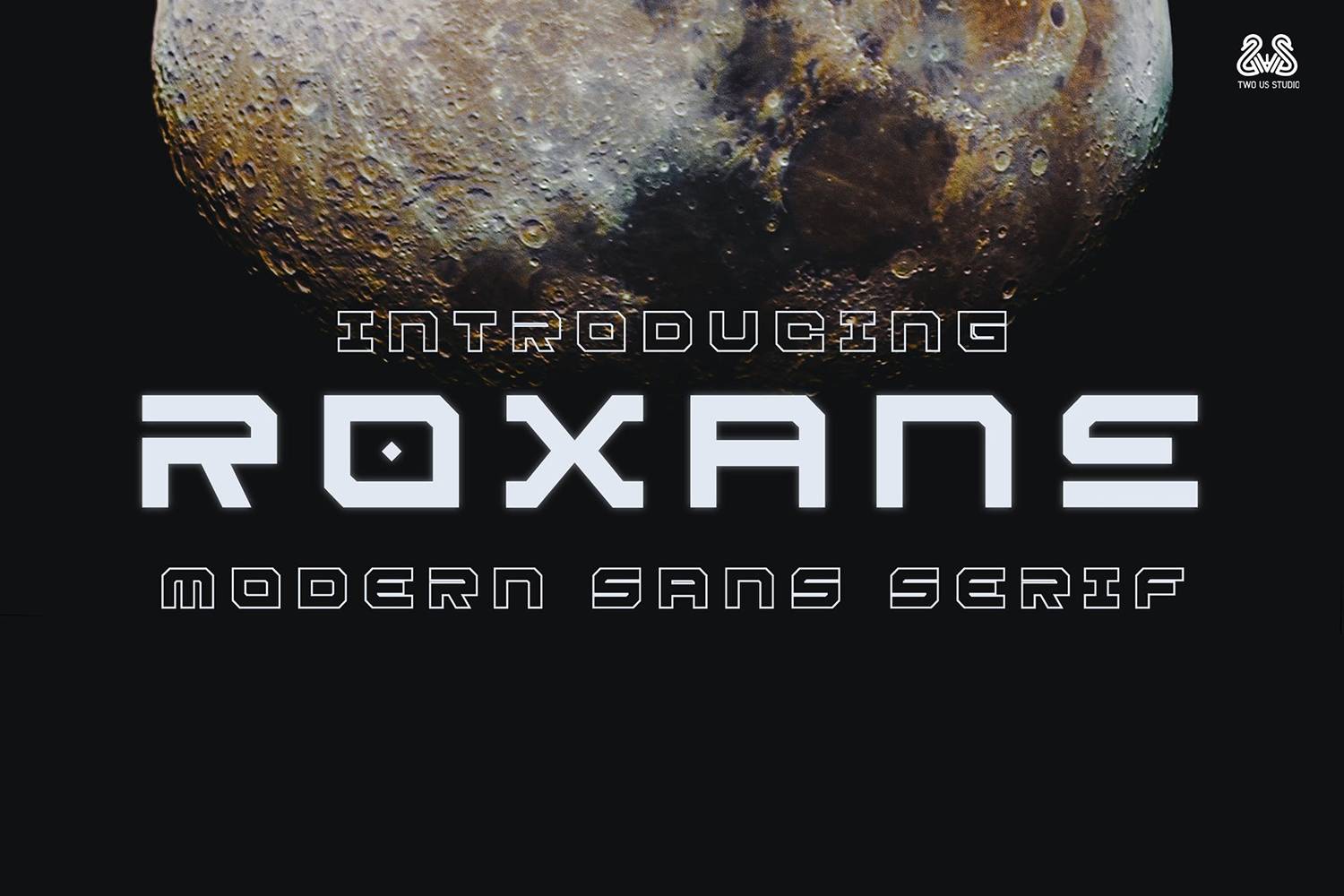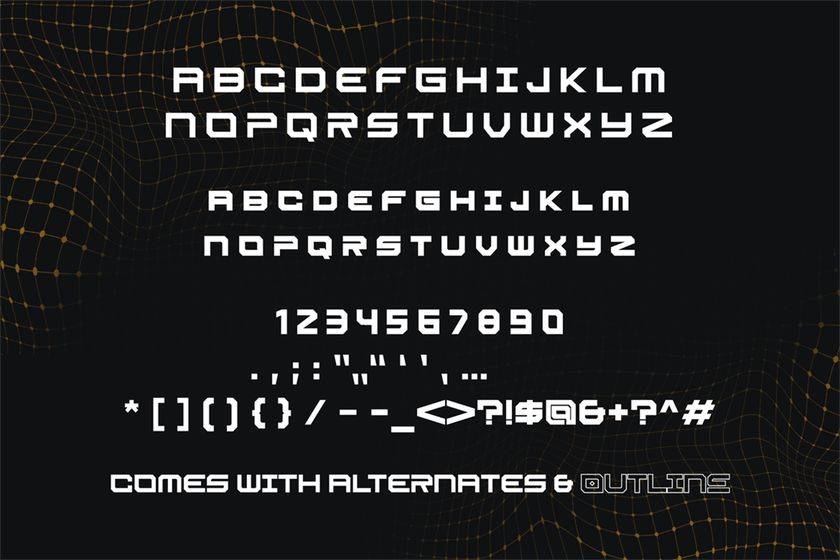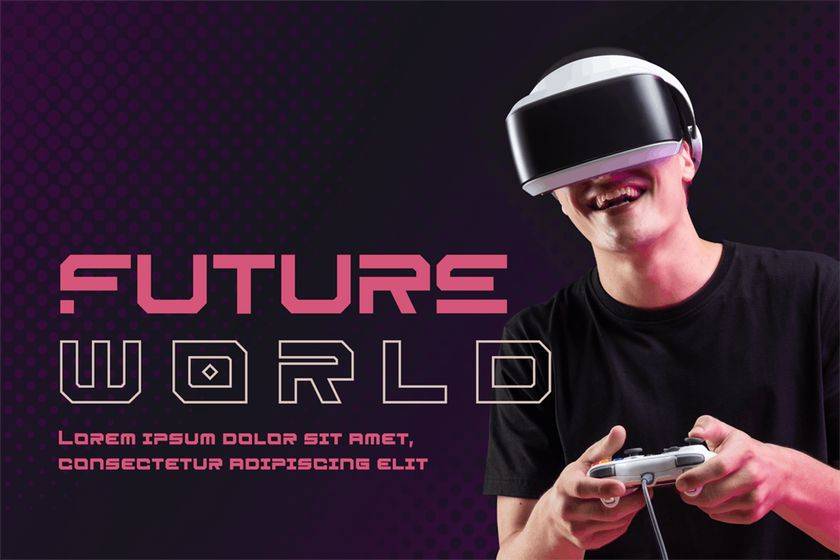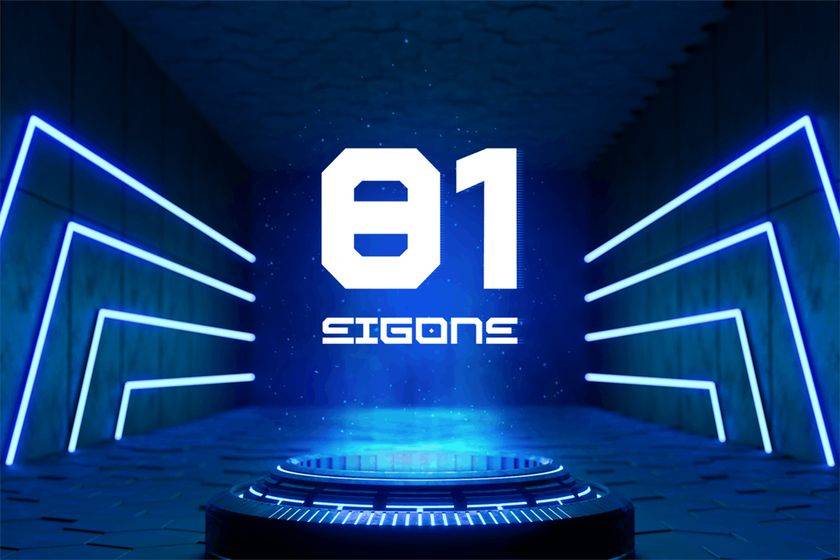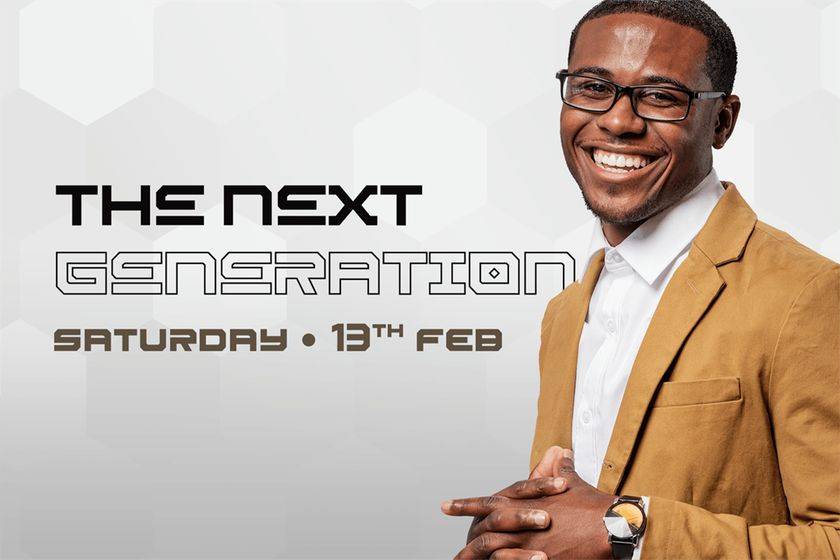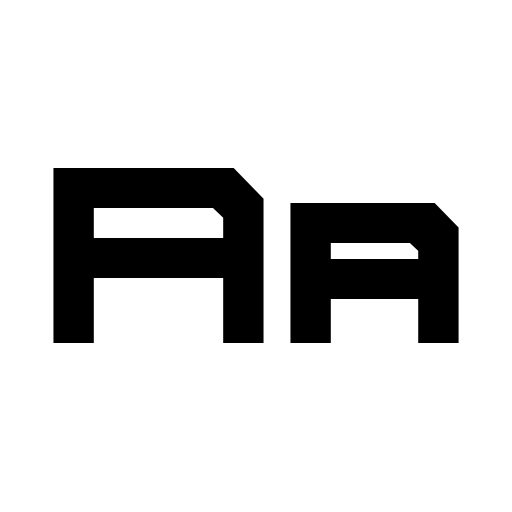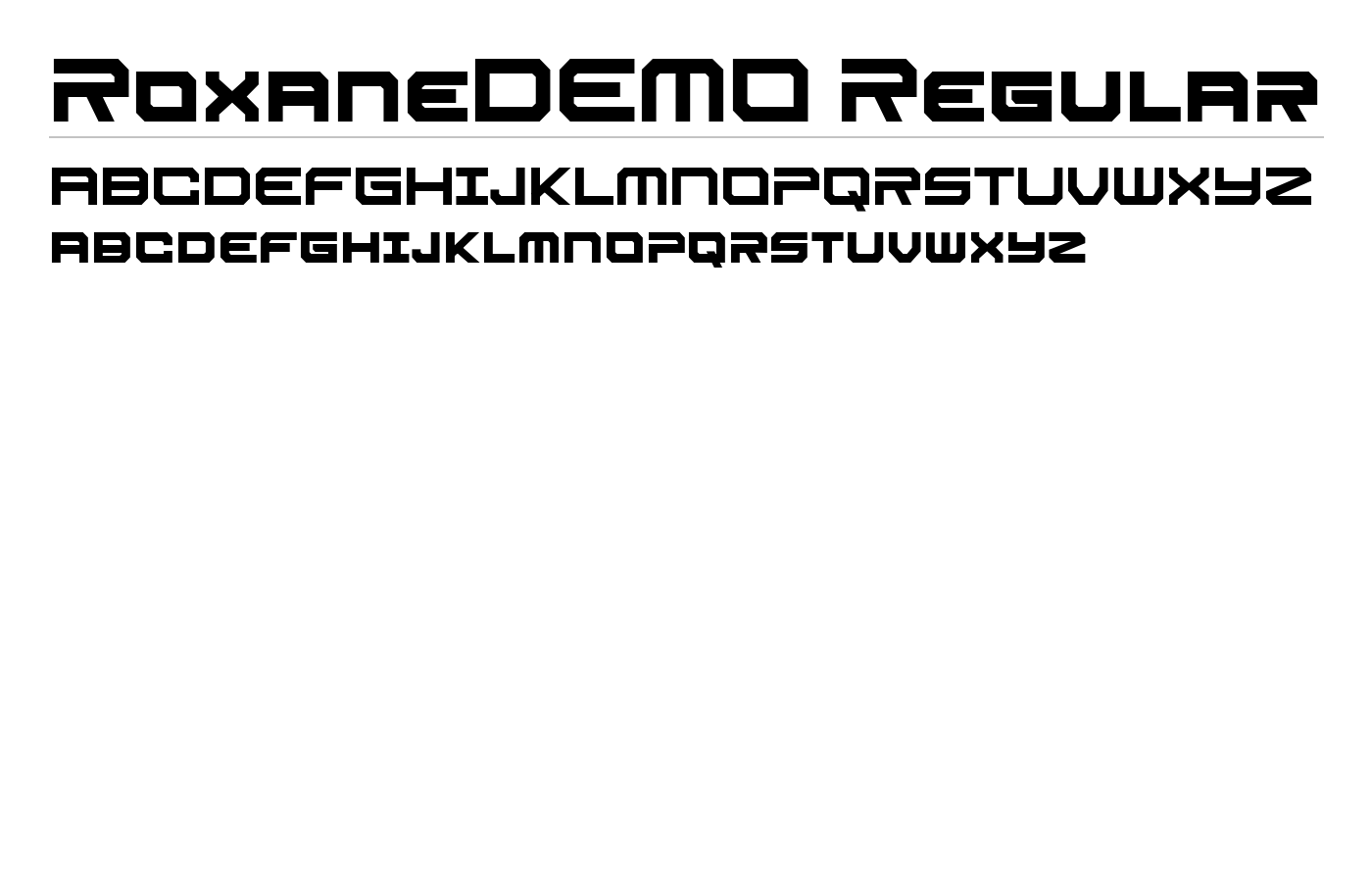
Roxane is a bold, geometric sans serif font with a futuristic and industrial feel. Its angled cuts and uniform stroke weight create a strong, technical appearance, making it ideal for technology, gaming, and sci-fi branding or headlines that require a modern, edgy impact. This font works best in logos, posters, and digital media where a distinctive, contemporary style is desired.
Roxane Font
About Roxane Font
| Font family | Roxane Font |
| Designer | Two Us Studio |
Made by Two Us Studio,Indonesia, 2022